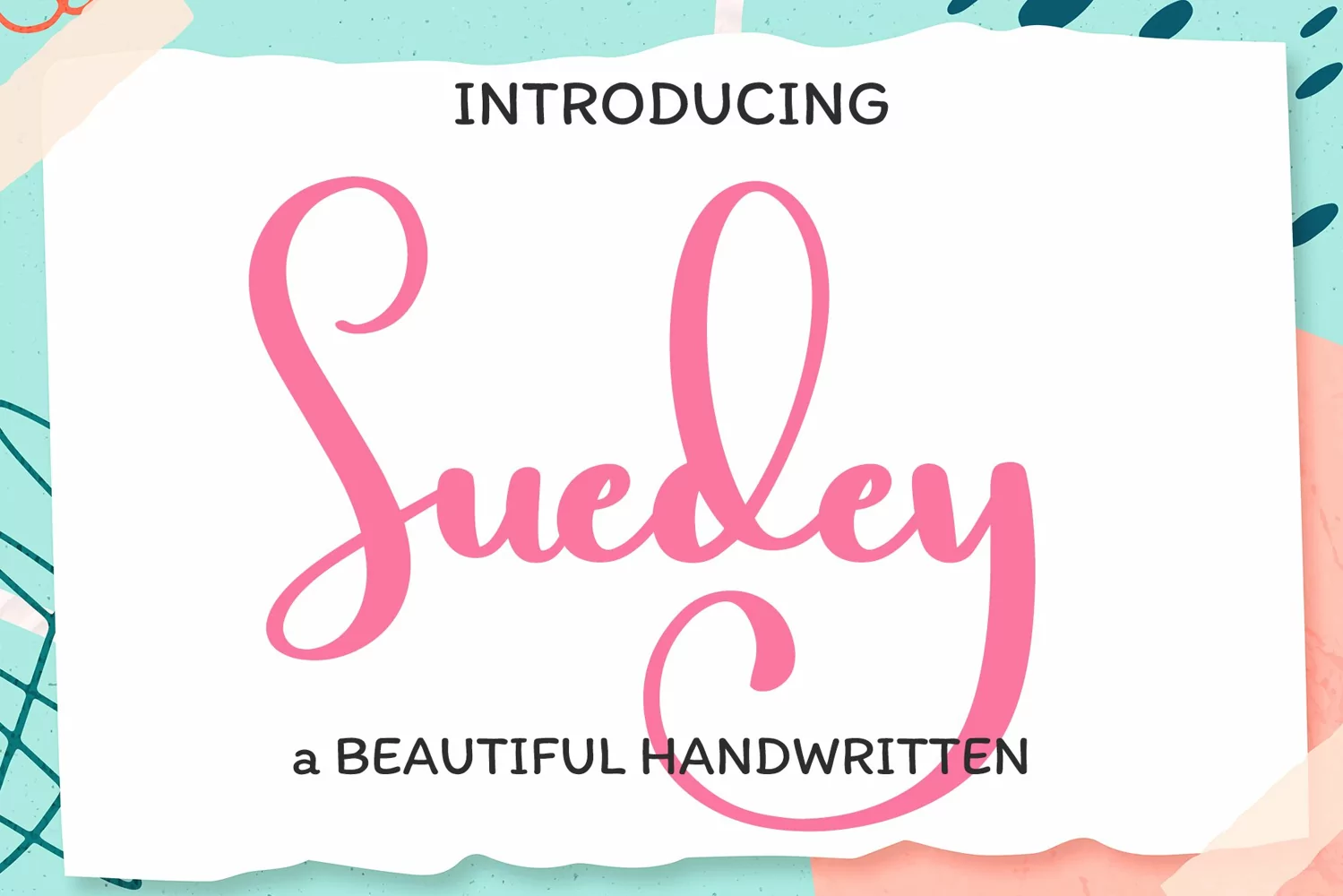
Bark Spears - Handwritten script font
suedey is a lovely and timeless handwritten font. It is the best choice for creating eye catching logos, branding and quotes. Every letter has a unique and beautiful touch, which will make your design come alive!